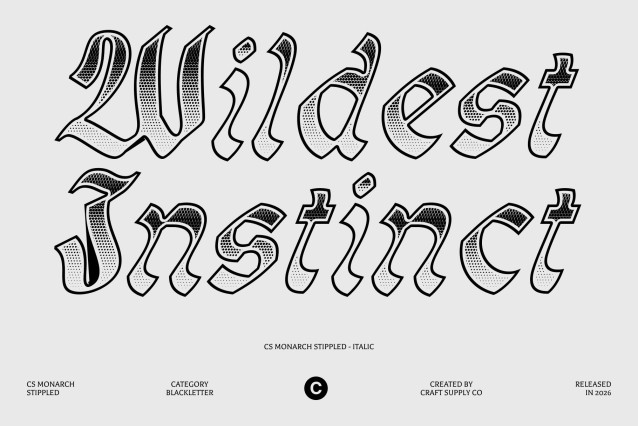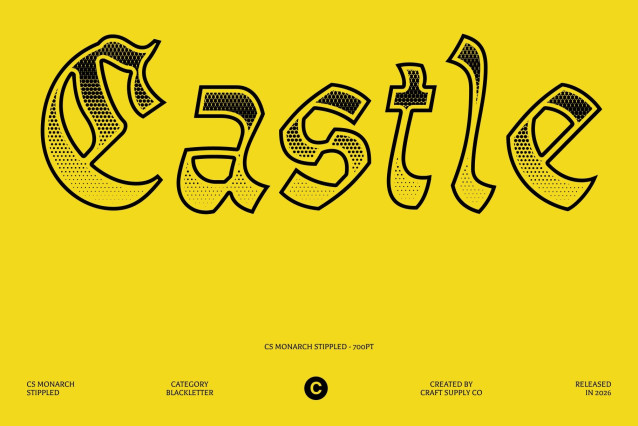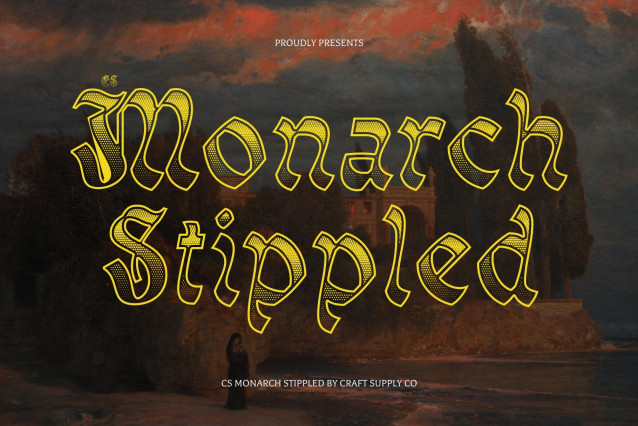
CS Monarch Stippled Font
CS Monarch Stippled – Blackletter Font: Bold Tradition Reimagined
Classic Roots with Contemporary Refinement
This is a striking display typeface that fuses the historic strength of blackletter with a refined modern structure. Its letterforms preserve the ornate richness of traditional scripts while introducing cleaner contours and improved clarity, making it perfectly suited for today’s design landscape.
Elegant Yet Commanding Presence
Defined by angular strokes, sharp contours, and structured forms, this font delivers a bold and authoritative visual impact. It conveys sophistication, confidence, and prestige ideal for projects that require a strong typographic voice without losing elegance.
Stippled Texture for Vintage Depth
The stippled treatment introduces a dense dotted texture that mimics traditional ink and engraving techniques. This dotwork effect enriches the blackletter details, adding handcrafted character, visual depth, and a refined vintage atmosphere.